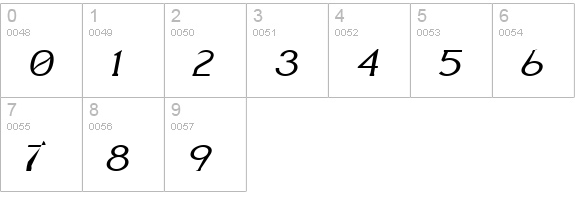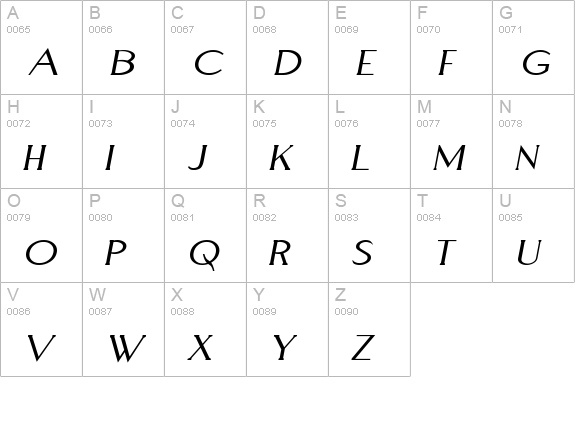
Aquaduct Italic Font Details
Aquaduct Italic is a distinctive, italic variant in the Aquaduct typeface family \xE2\x80\x94 well suited to design and typography projects.
Aquaduct Italic is a modern and sleek typeface that exudes elegance and sophistication. With its stylish slanted design, this font is perfect for adding a touch of refinement to any project. The sleek curves and distinctive letterforms of Aquaduct Italic make it ideal for use in a variety of design applications, from branding to editorial design. What sets Aquaduct Italic apart is not only its aesthetic appeal but also its versatility. Whether you're looking to create a chic logo, eye-catching packaging, or stunning headlines, this font has you covered. Its italic style adds a dynamic and contemporary flair to any text, making it a standout choice for designers looking to make a statement. And the best part? Aquaduct Italic is available for free download at FontsMarket.com. This means that you can easily access this premium font without breaking the bank, allowing you to elevate your designs without any hassle. So why wait? Download Aquaduct Italic today and give your projects that extra touch of sophistication they deserve.